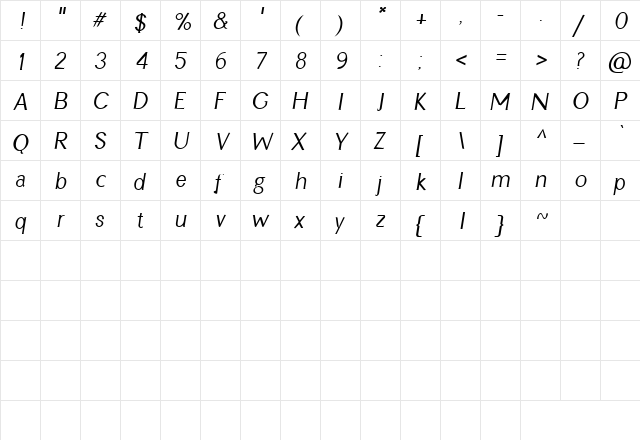
Cyn Oblique
Design Context for Cyn Typeface
Cyn is a composed and adaptable typeface that performs quietly and consistently across a wide range of design contexts. The dynamic lean of this cut emphasises speed and emphasis in any layout.
Pro Tip: Try Cyn for annotation and caption copy alongside an upright companion — the contrast in angle creates a dynamic but ordered typographic system.